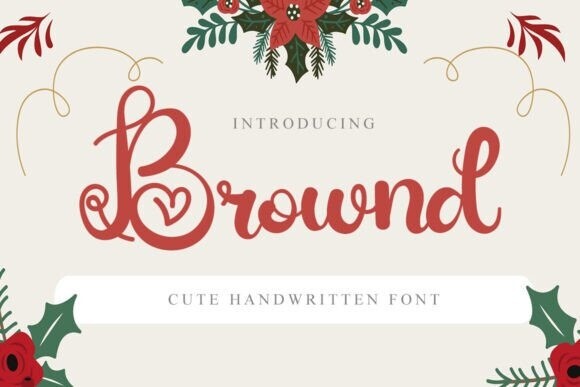
Brownd Font
Designer: Eddygoodboy
Brownd Font is a beautifully crafted font – a combination of freshness, elegance and sweetness. This artistic font blends seamlessly into a multitude of projects, formal or informal, enhancing their aesthetic appeal many times over. It brings a pure element of playfulness to your designs, giving them a lively touch. The font acts as your creative companion, designed to streamline your design process, with ease. Use this font and watch it transform your business, enhancing its visual appeal into an entity of undeniable beauty.